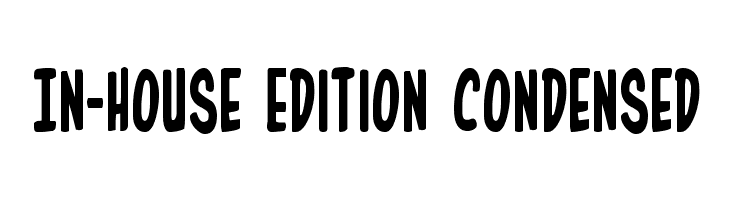
A dynamic handwritten font with fluid strokes and playful elegance.
A playful, handwritten font with a casual and informal style.
A hand-drawn, expressive font with elongated, irregular strokes.
A tall, narrow, hand-drawn font with a whimsical and organic feel.
A playful, handwritten font with tall, narrow letters and a quirky style.